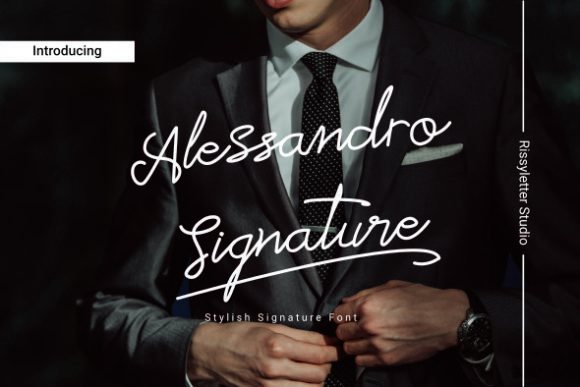
Alessandro Signature Font: Where Creativity Meets Elegance
Have you ever sat in front of your computer, staring blankly at a blank page, trying to conjure up the perfect design? The words just won’t come, and your creativity is stuck in a rut. That’s when you need a spark to ignite your imagination, and for many designers, that spark comes in the form of a beautiful font.
Enter the Alessandro Signature Font, a delicate and elegant handwritten font that is sure to capture your heart. Its unique and well-rounded letters make it a masterpiece, perfect for creating spectacular designs that will leave a lasting impression. Whether you’re a seasoned designer or just starting out, the Alessandro Signature Font is a valuable addition to your toolkit.
With its incredibly versatile style, this font is perfect for a wide range of designs, from invitations and greeting cards to branding and marketing materials. So why settle for a plain font when you can add a touch of elegance and sophistication with the Alessandro Signature Font?
Alessandro Signature Font Key Features
• Font Style: A elegant and modern signature font, ideal for personal and business use.
• Unique Characteristics: Features a unique blend of elegance and sophistication, with subtle flair and movement.
Alessandro Signature Font Review
Overall, I’m impressed with the Alessandro Signature Font, but as with any font, it has its strengths and weaknesses. Here’s my honest review:
• ✨ Elegant and sophisticated design: This font exudes luxury and class, making it perfect for high-end branding and marketing materials.
• ✨ Wide range of applications: From business cards to advertisements, Alessandro Signature Font is versatile and can be used in various contexts.
• ✨ Beautiful script style: The handwritten feel of this font adds a touch of personality to any design, making it stand out from more generic fonts.
• ⚠️ Limited character set: While the font has a decent range of characters, it’s not as comprehensive as some other fonts on the market, which might limit its use in certain situations.
• ⚠️ Not ideal for small text: The font’s elegant design can sometimes make it difficult to read in smaller sizes, which may require adjustments in design.
Overall, I think Alessandro Signature Font is a great addition to any designer’s toolkit, but it’s essential to understand its limitations and use it accordingly. With careful design and application, this font can elevate any project to the next level.
Use the Alessandro Signature Font for:
• Creating custom logos and branding materials
• Designing professional-looking headings and titles
• Adding a touch of elegance to your quotes and captions
Alternatives to Alessandro Signature Font
Great Vibes Font is a beautiful, elegant script font perfect for creating a sophisticated and luxurious feel in your designs. It is ideal for use in branding, invitations, and other high-end projects where a touch of elegance is required. Great Vibes Font is more formal and refined compared to Alessandro Signature Font, which has a more casual and relaxed feel.
Carolyna Pro Font is a modern and stylish script font that is ideal for use in fashion, beauty, and lifestyle branding. It is also great for creating invitations, menus, and other promotional materials where a touch of sophistication is required. Carolyna Pro Font is more versatile and adaptable compared to Alessandro Signature Font, which has a more limited range of applications.